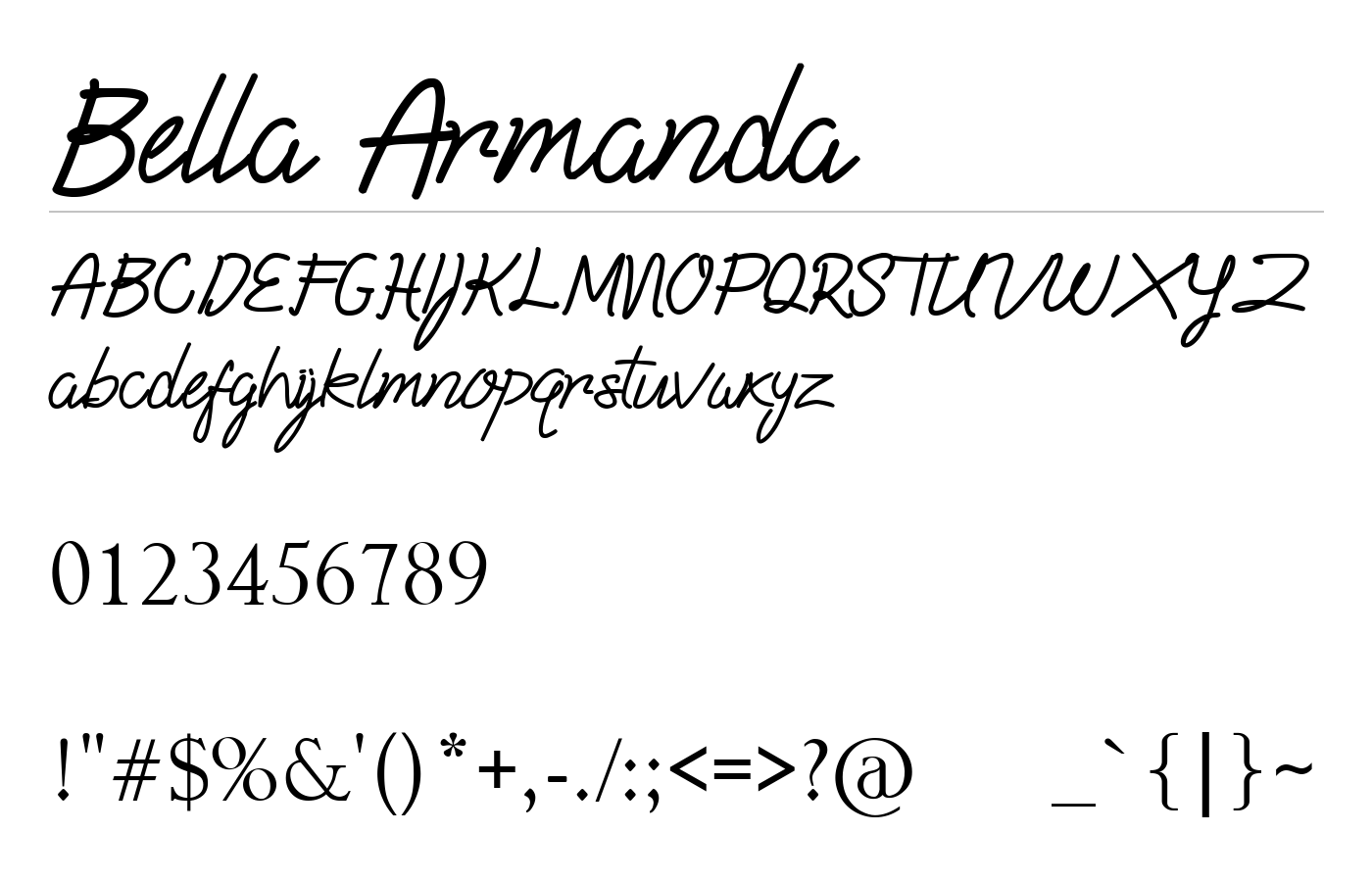
Bella Armanda is a stylish handwritten script font with a smooth, flowing appearance that feels personal and approachable. Its slender, slightly slanted letterforms give it an elegant yet casual vibe, making it ideal for creative projects, branding, and invitations where a natural, friendly touch is desired. This font works well in uses that benefit from a hand-crafted look, adding warmth and personality without sacrificing readability.
Bella Armanda Font
About Bella Armanda Font